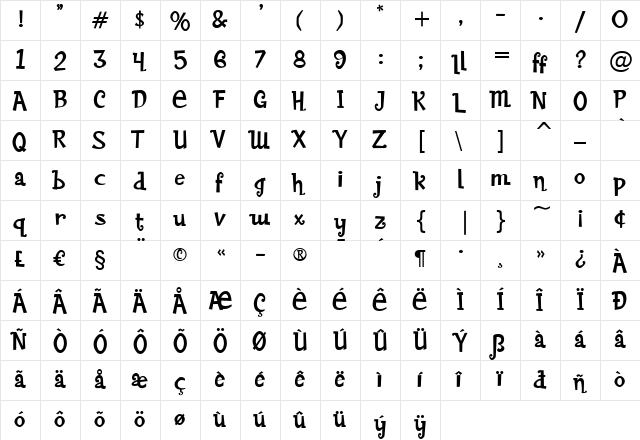
BaileywickFestiveJF Medium Font Preview
BaileywickFestiveJF Medium
BaileywickFestiveJF Medium Font Details
Design Context for BaileywickFestiveJF Typeface
BaileywickFestiveJF is a composed and adaptable typeface that performs quietly and consistently across a wide range of design contexts.